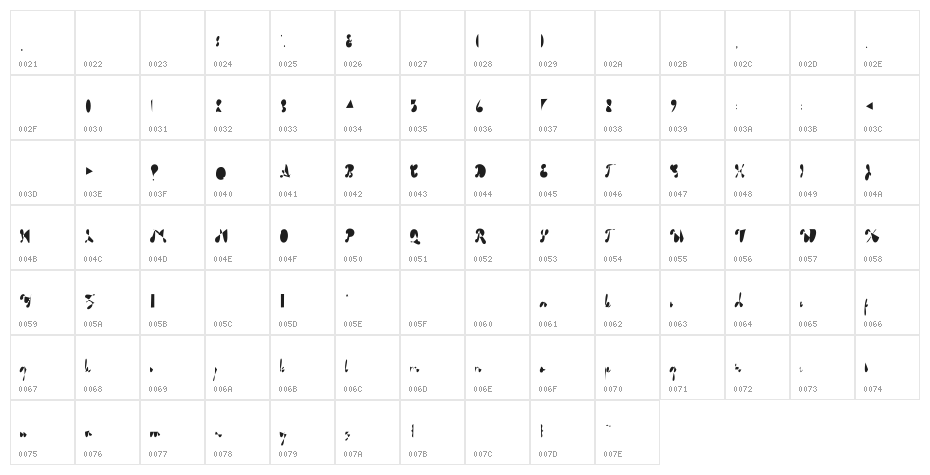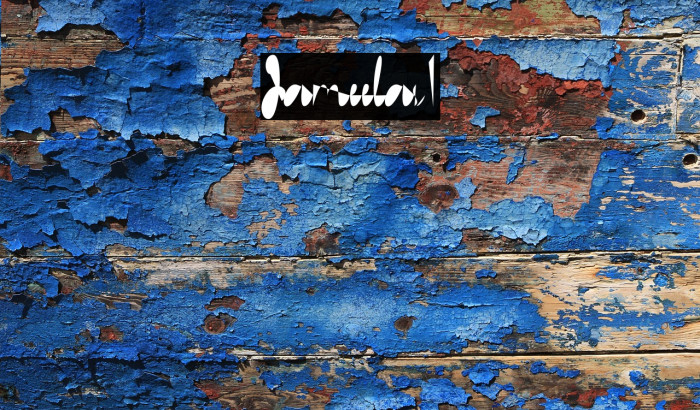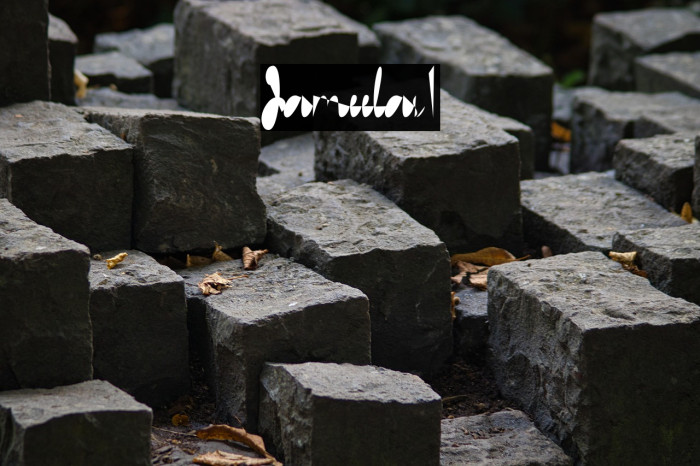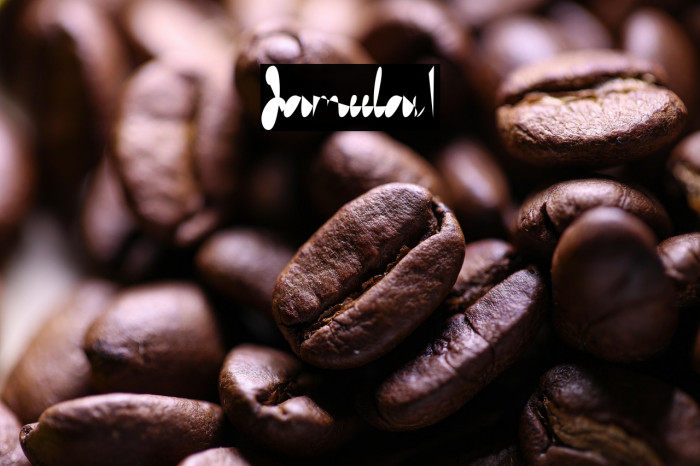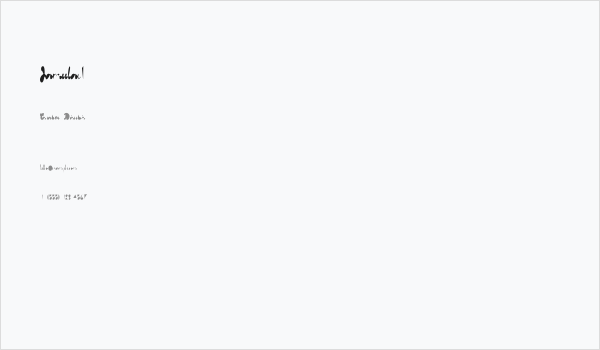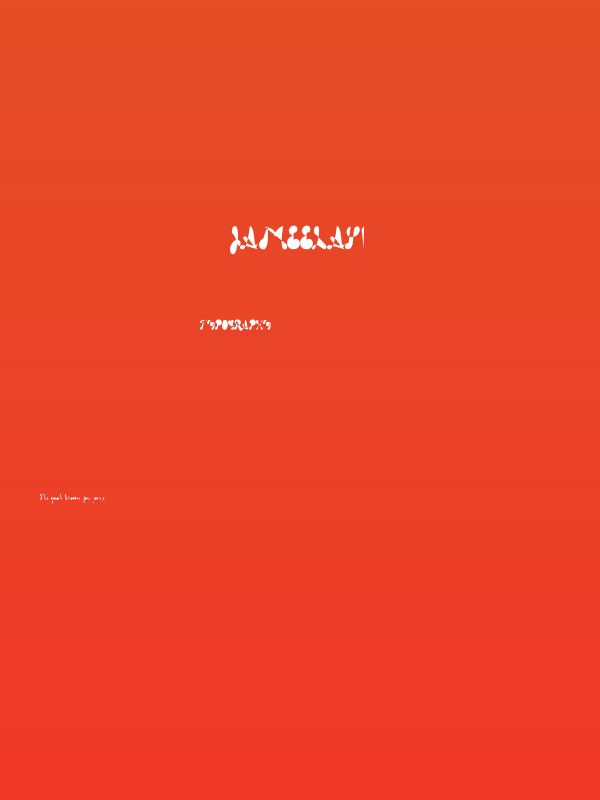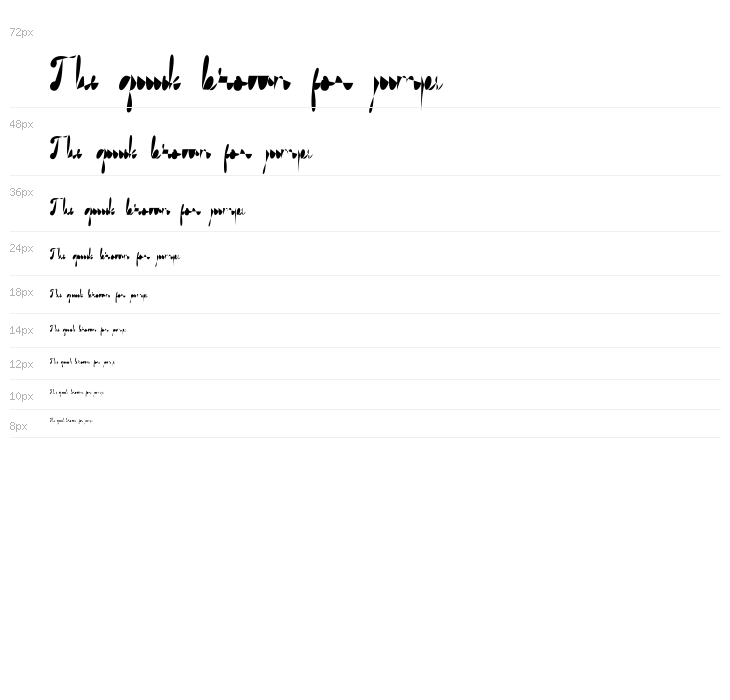
Jameelas1 Font
Jameelas1 Description
This font features a highly decorative and artistic style, with each character exhibiting a unique blend of curves and sharp angles. The uppercase letters are bold and dynamic, with intricate details that create a sense of movement and fluidity. The lowercase letters maintain a similar aesthetic but are slightly more condensed, adding to the overall elegance of the design. Numbers and special characters follow the same artistic theme, making them stand out with their distinctive shapes. The font's high contrast in stroke thickness enhances its visual impact, making it suitable for eye-catching designs.